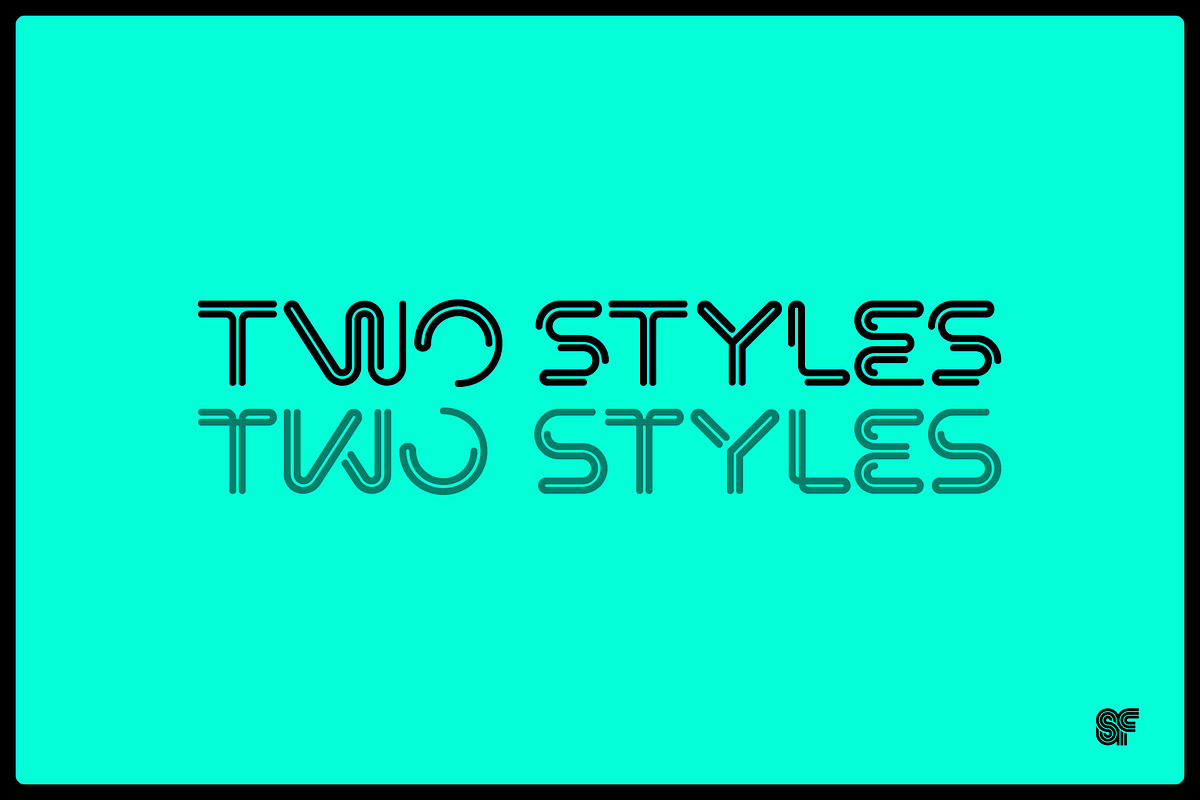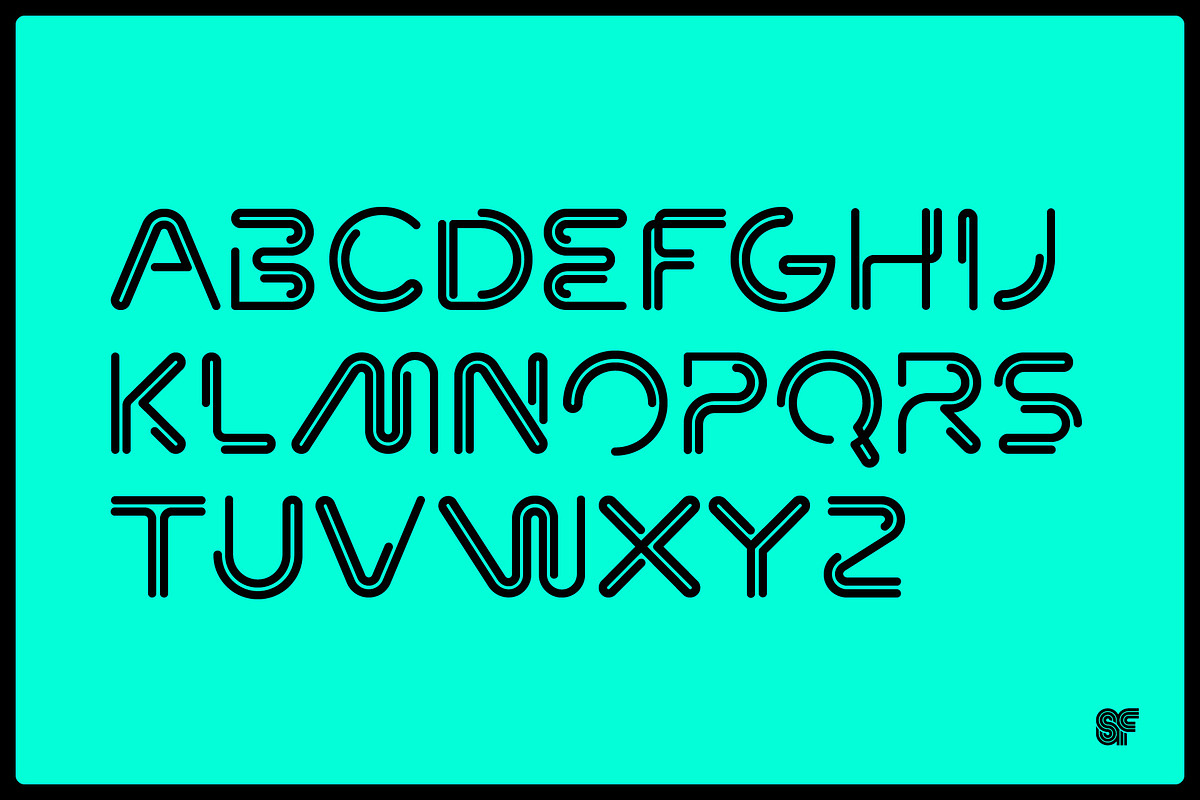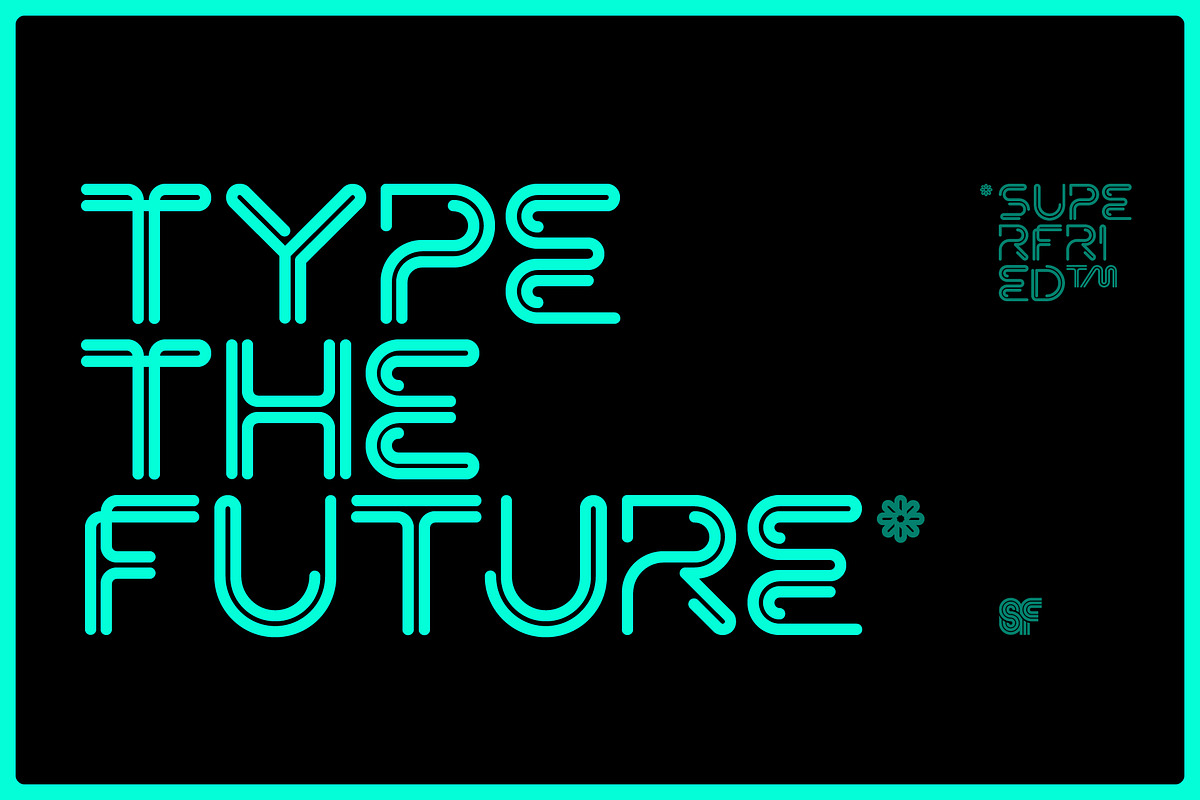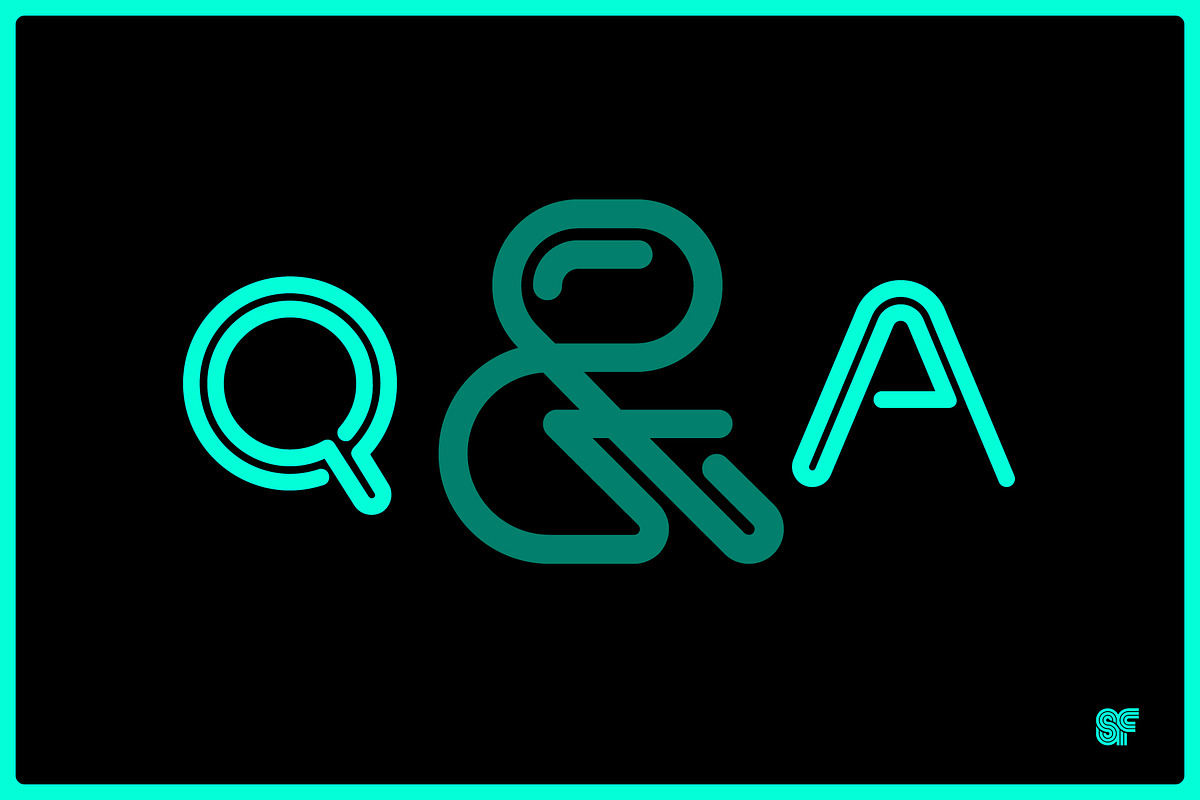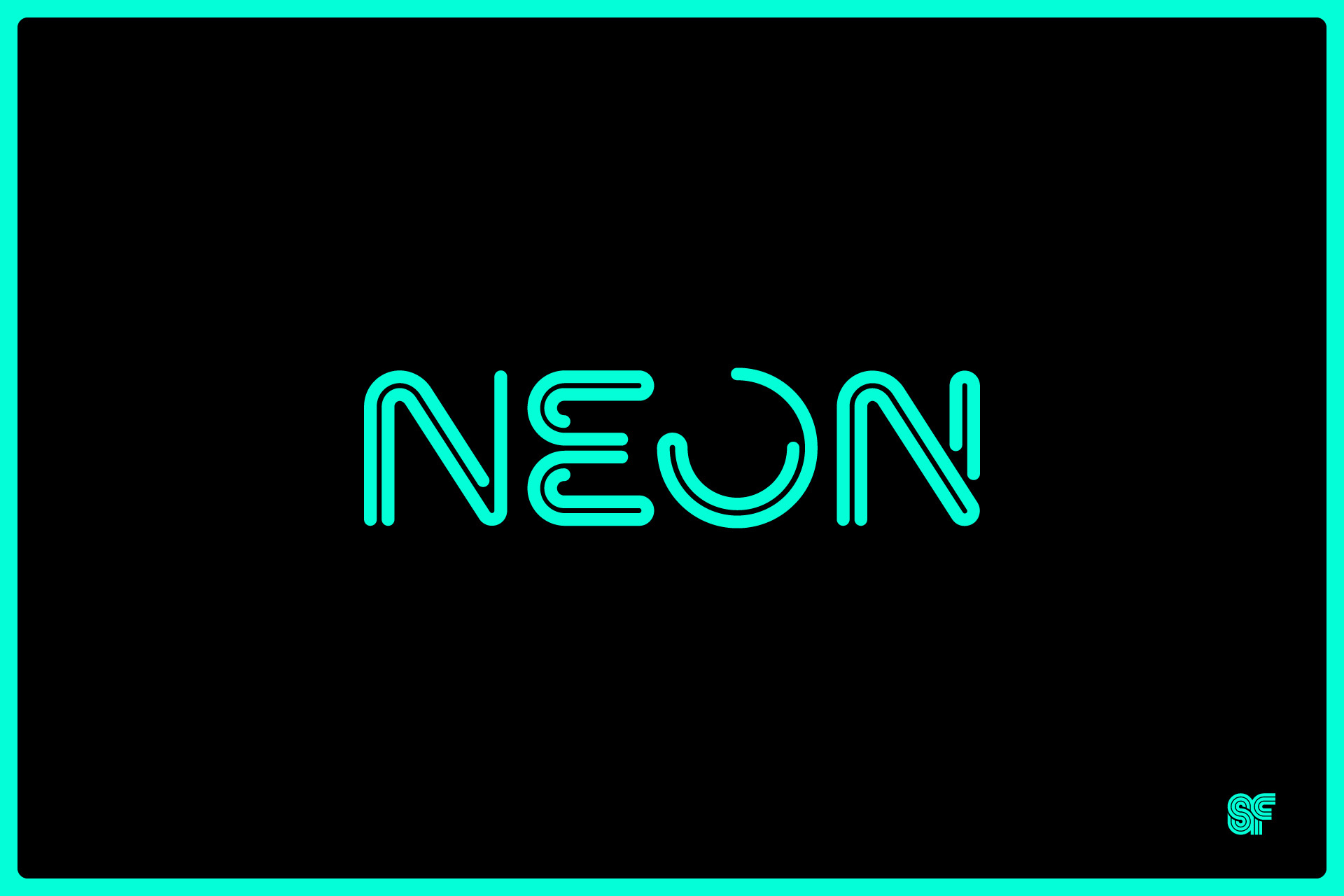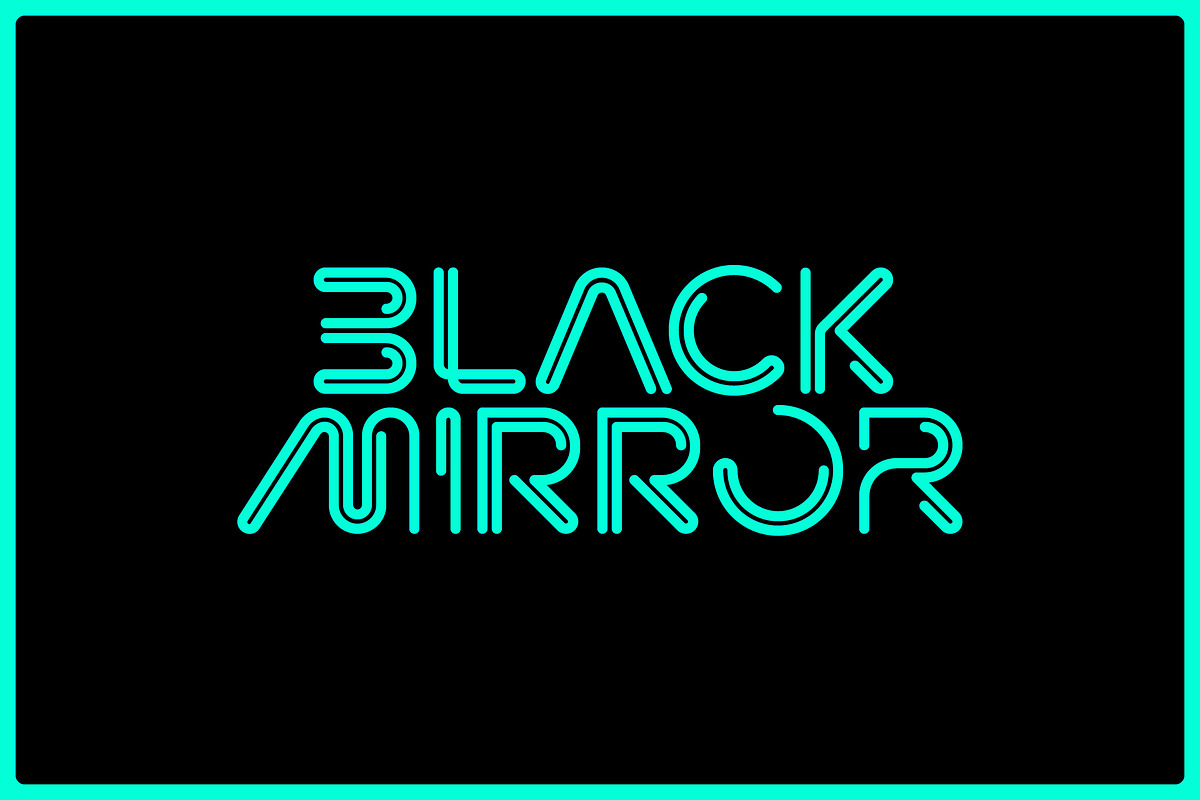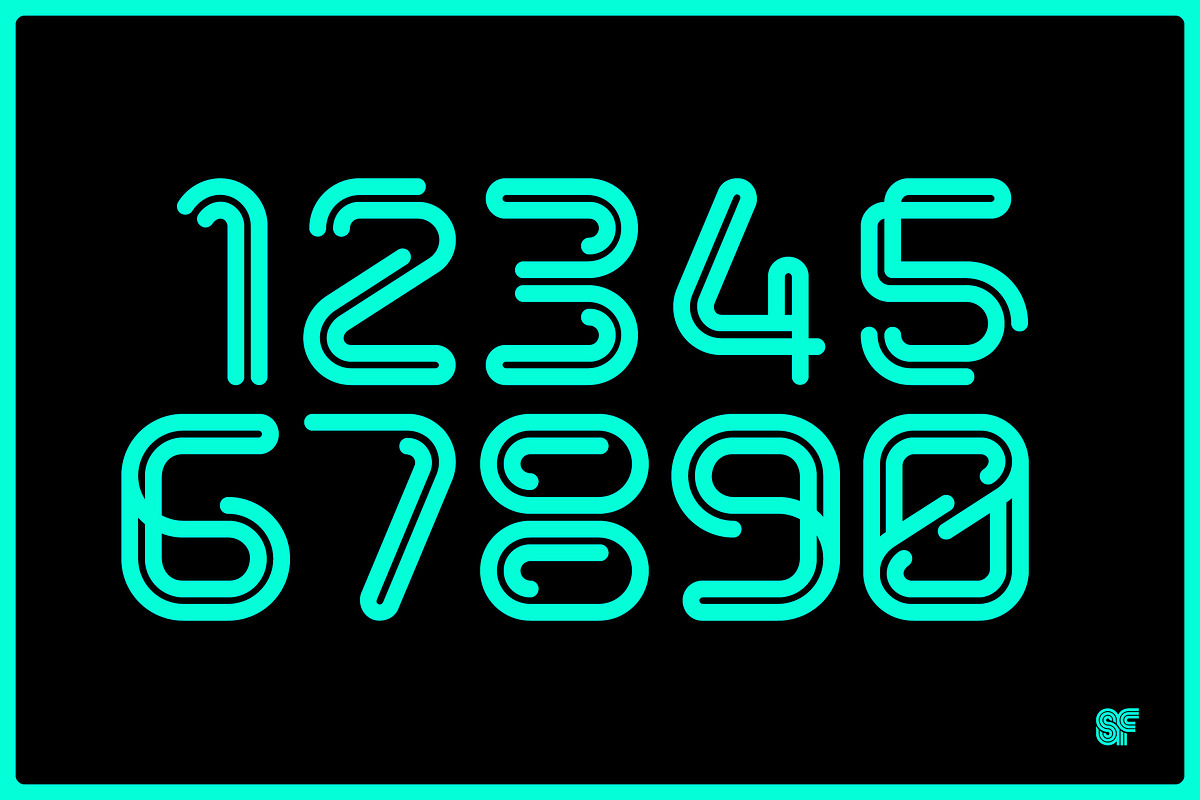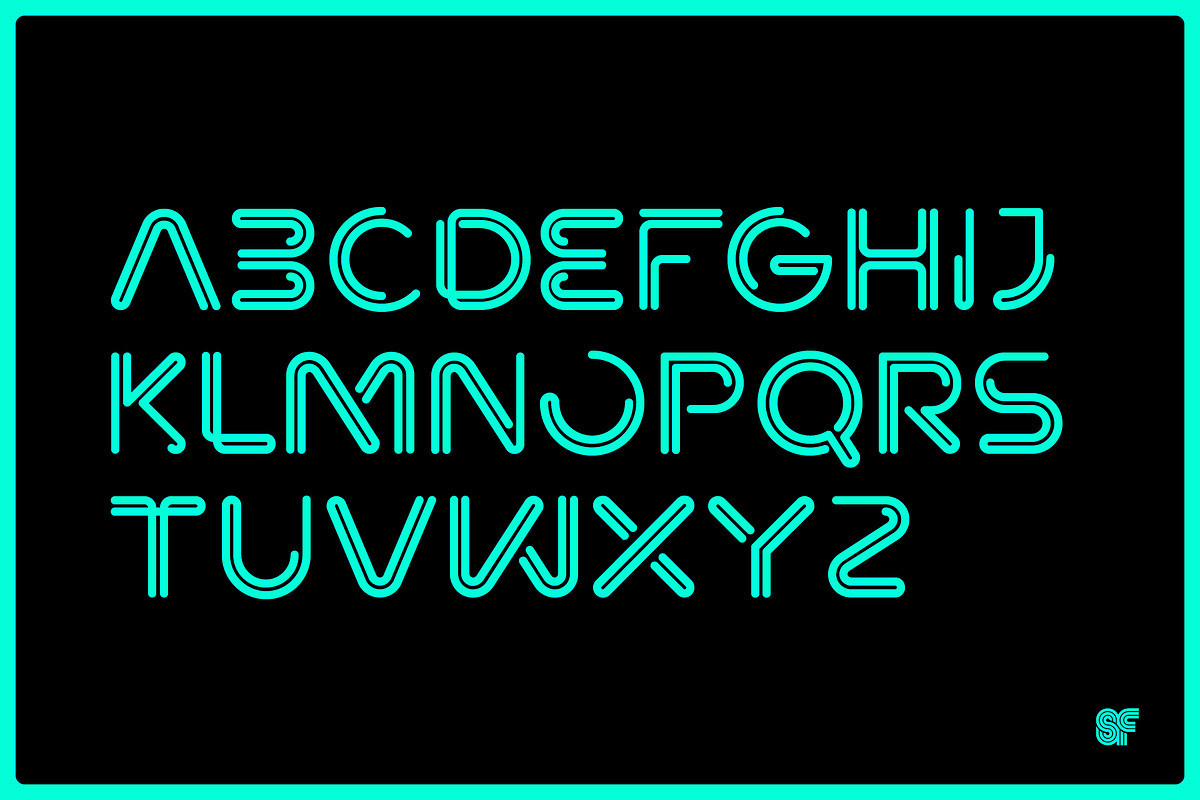
NEON | Display | 2 Styles | 1 Font
Originally designed back in 2014, Neon is an experimental, retro sci-fi display typeface by Superfried. Remastered for 2025, this unique font showcases significant design enhancements, including refined glyphs and improved spacing for optimal readability.
Neon offers two unique styles that can be easily toggled using the shift key, allowing for versatile applications in various design projects. Inspired by neon signage, classic sci-fi films, and video games from my childhood, Neon has evolved into a distinctive display typeface that stands out in branding, editorial, and web design.
With 266 glyphs, Neon is perfect for creating eye-catching headlines and graphics. Featured in Computer Arts magazine and on North East, it’s a must-have for designers looking to add a touch of retro flair to their work.